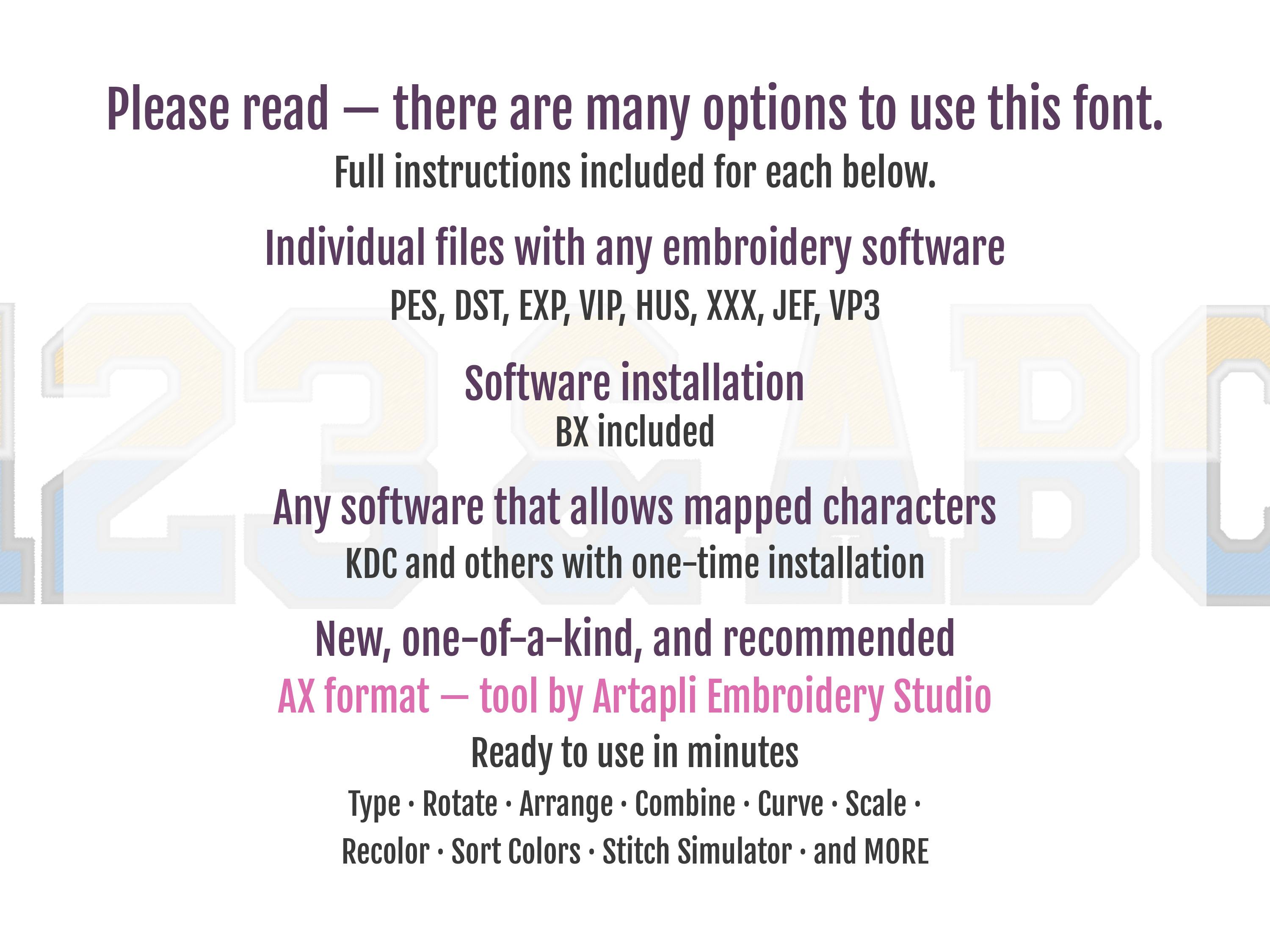
2 colors ATHLETIC block FONT split divided Collegiate varsity Split Font machine embroidery designs fill stitch alphabet 2, 3, 4, 5, 6inches
Letters and numbers